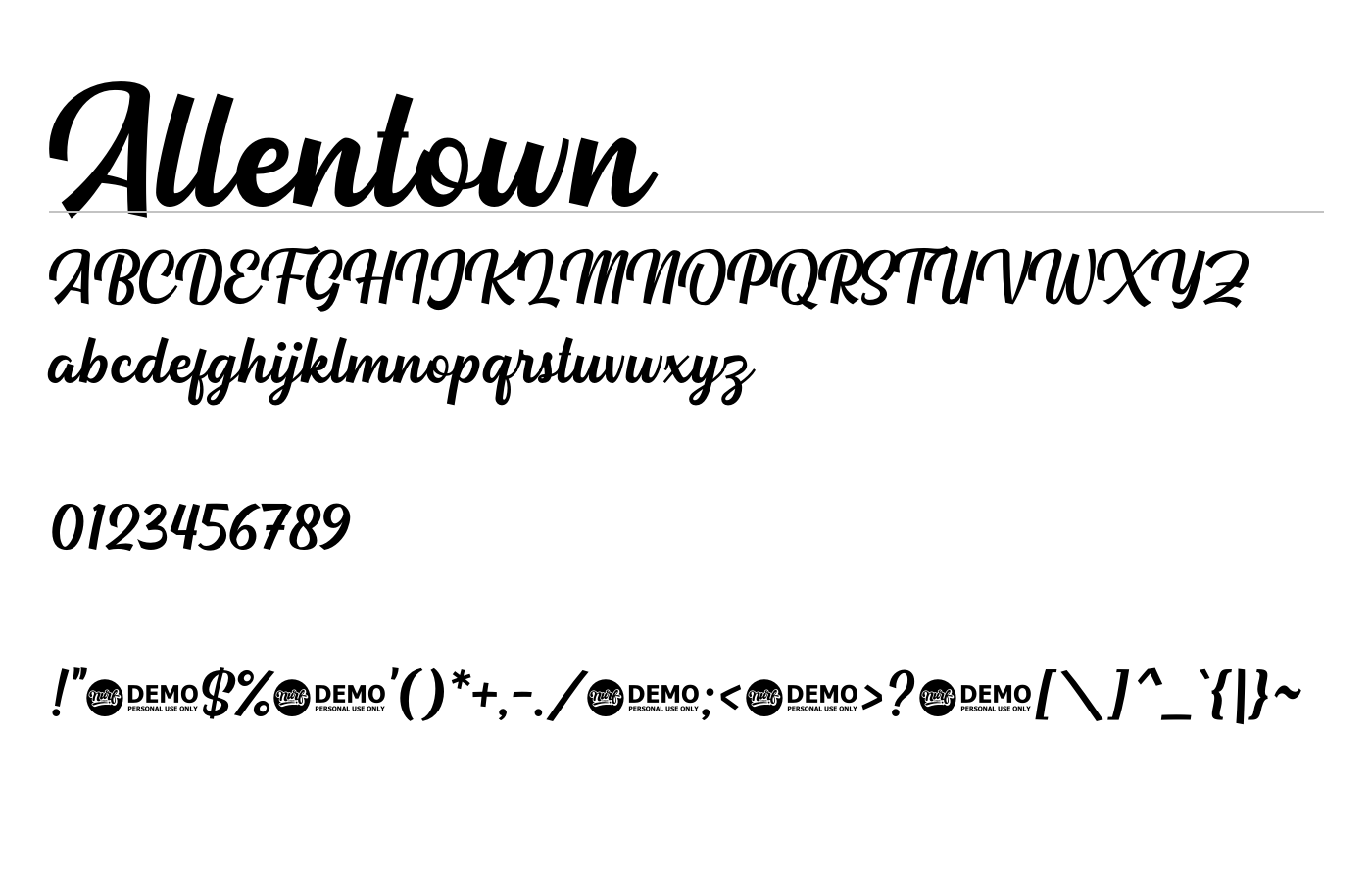
Allentown is a lively script font that combines a bold and slightly condensed style with smooth, flowing strokes. Its moderate contrast and playful curves give it a friendly yet confident personality, making it ideal for branding, packaging, and headlines that want to convey warmth with a touch of elegance. This font shines in creative and casual contexts where a personal, inviting feel is desired.
Allentown Font
About Allentown Font
| Font family | Allentown Font |
| Designer | Fajar Abdul Fatah - Nurf Designs |